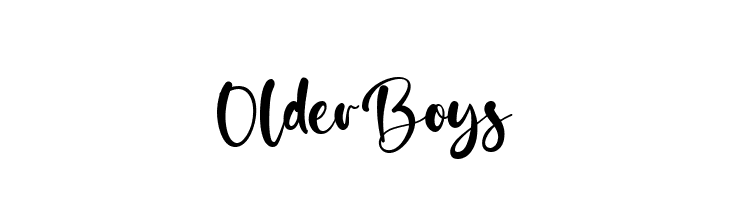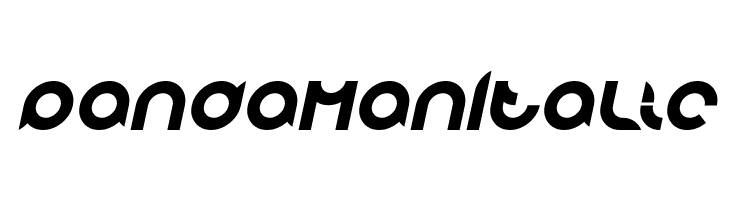
A geometric, grid-like font with a modern and decorative style.
A futuristic, striped font with a digital, gradient-like appearance.
A bold, decorative font with vintage flair and pronounced serifs.
A modern, geometric font with a futuristic and dynamic style.
A pixelated, monospaced font with a retro digital aesthetic.
A bold, brush-stroke font with a textured, artistic style.
A whimsical, handwritten font with a light and airy style.
A bold, futuristic font with geometric and modern design elements.
A lively, cursive script font with fluid, connected letters and varying stroke thickness.
A playful, handwritten font with fluid, connected letterforms.